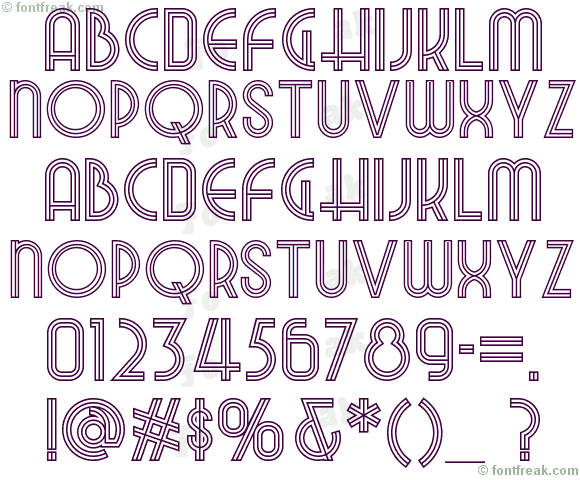
Night At The Opera NF
About Night At The Opera NF
The Night At The Opera NF font by Nick Curtis is a striking display typeface that captures the grandeur and drama of its namesake. As a decorative font, it features unique letterforms that embody a theatrical essence, making it ideal for projects that require a touch of elegance and flair. The font showcases a combination of bold strokes and subtle curves, resulting in a visually arresting appearance that draws attention. Its moderate contrast in weight adds depth, while the consistent letter spacing ensures clarity and readability.
This font is particularly well-suited for a variety of creative applications. It shines in wedding invitations, where its ornate style can evoke a sense of romance and celebration. Additionally, it works beautifully for movie posters, effectively conveying a dramatic tone that captures the viewer's imagination. Restaurant menus can benefit from its artistic flair, making the dining experience feel more upscale and inviting. Graphic designers may also find it fitting for branding projects that aim to stand out in a crowded market, while content creators can use it for eye-catching social media graphics that demand attention.
Targeting graphic designers, small business owners, and content creators alike, Night At The Opera NF provides an excellent option for those looking to enhance their visual storytelling. The font's unique characteristics and versatile applications make it an essential tool in any designer's arsenal.